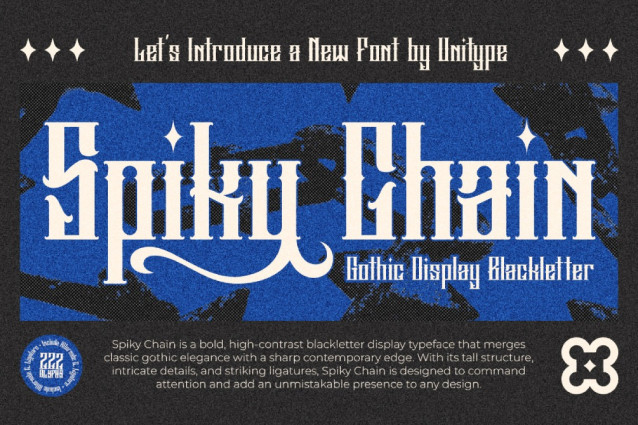
Spiky Chain Font
Spiky Chain Font is a bold, high-contrast blackletter display typeface that merges classic gothic elegance with a sharp contemporary edge. With its tall structure, intricate details, and striking ligatures, Spiky Chain is designed to command attention and add an unmistakable presence to any design.